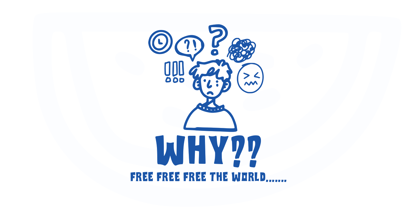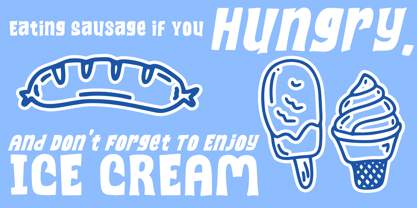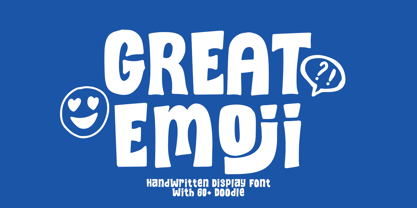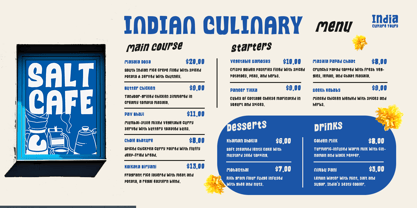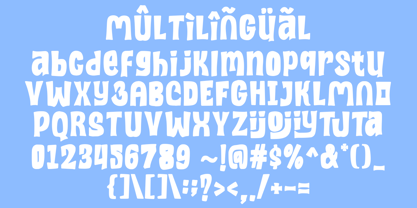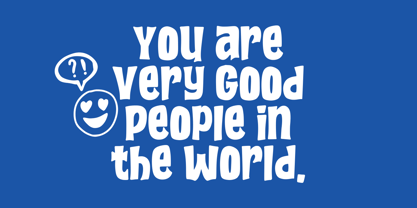
Great Emoji
The Great Emoji Font Family was designed by Andri Kurniawan and published by Struggle Studio. Great Emoji contains 3 styles and family package options. More about this family
Great Emoji is a cheerful and expressive handwritten display font designed to bring fun and personality to your creative projects. With bold, playful letterforms and a casual hand-drawn look, this font is perfect for posters, children’s books, social media graphics, packaging, and anything that needs a vibrant, lighthearted touch.
This font family includes 3 unique styles:
Regular – A bold, rounded handwritten style for maximum visual impact.
Italic – A slanted version that adds dynamic motion and energy.
Doodle – A bonus set of 60+ hand-drawn emoji-style doodles to enhance your designs with expressive, illustrated elements.
Great Emoji is more than just a font – it's a mood booster for your designs!